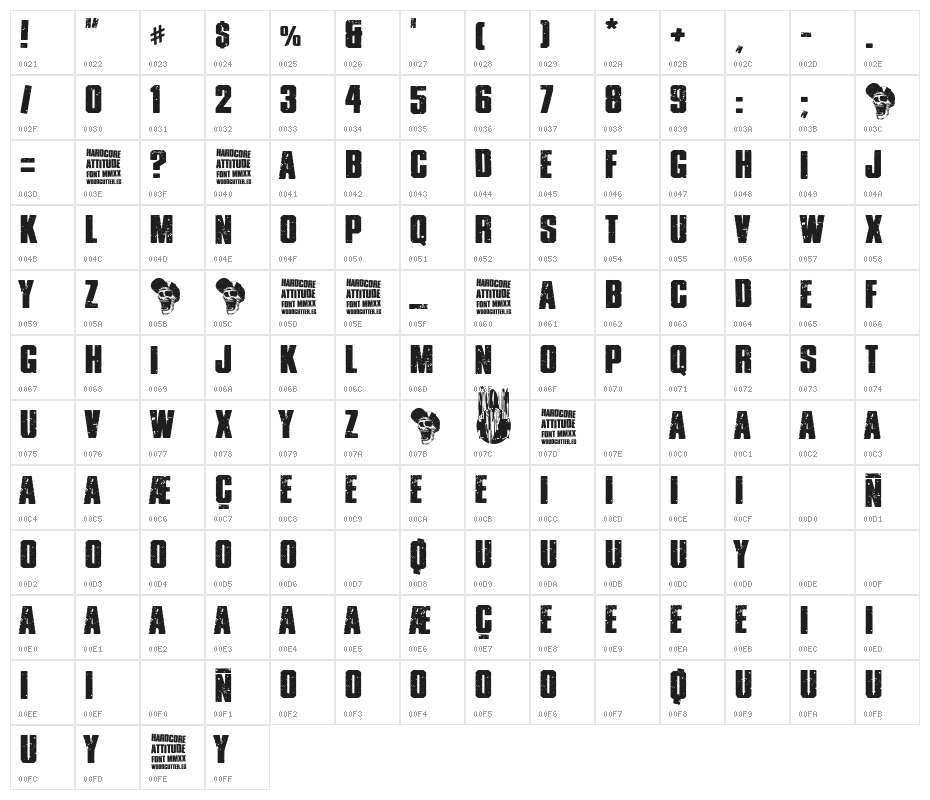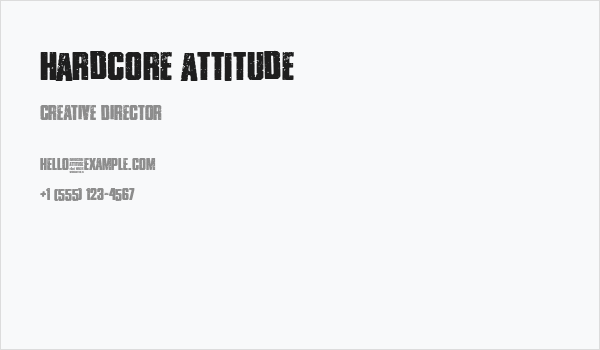
HARDCORE ATTITUDE Font
HARDCORE ATTITUDE Description
This font exudes a rugged and distressed aesthetic, characterized by its bold and blocky letterforms. Each character appears weathered, with a textured, grunge effect that suggests a sense of toughness and resilience. The uppercase letters are prominent and commanding, making a strong visual impact. The numbers and special characters maintain this distressed style, ensuring consistency across all glyphs. This font is ideal for projects that require a bold statement, such as posters, album covers, or branding that seeks to convey strength and edginess.
| Overall Style | Grunge, Rugged, Distressed |
| Proposed Projects | Ideal for music album covers, edgy branding, posters, and streetwear designs. |